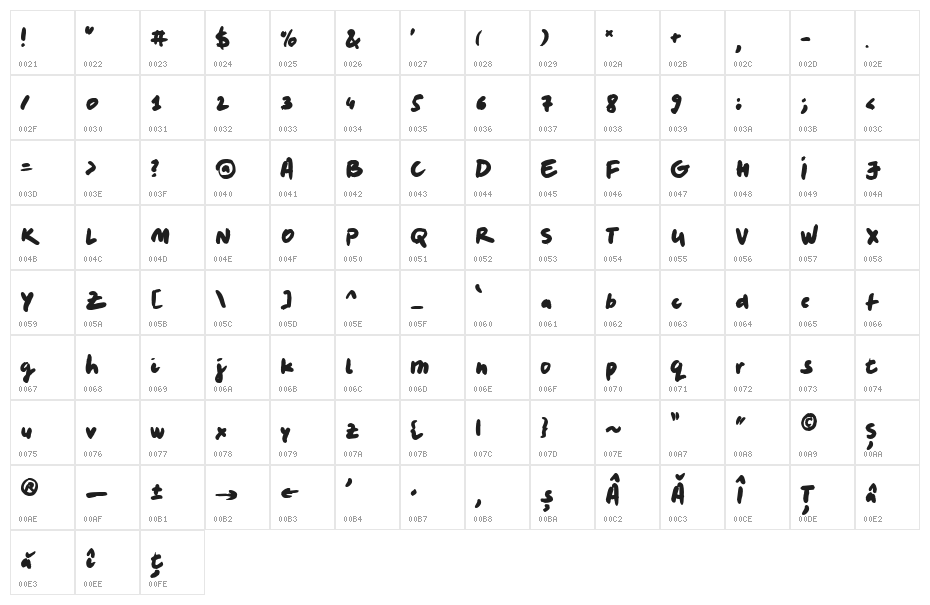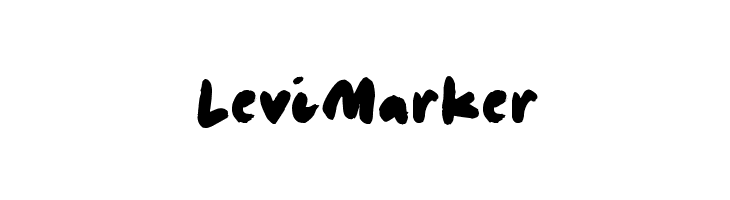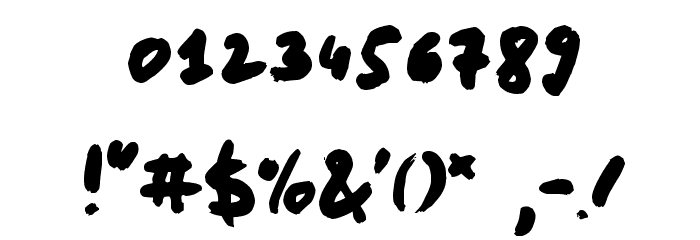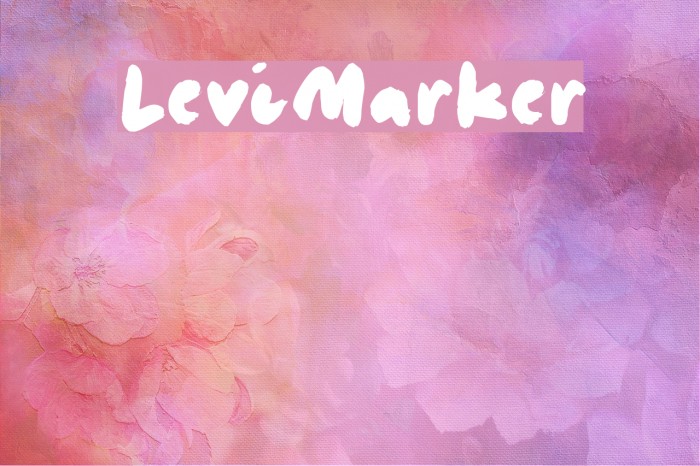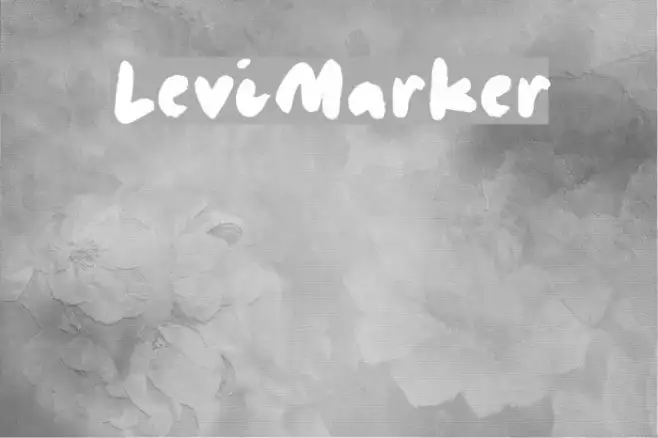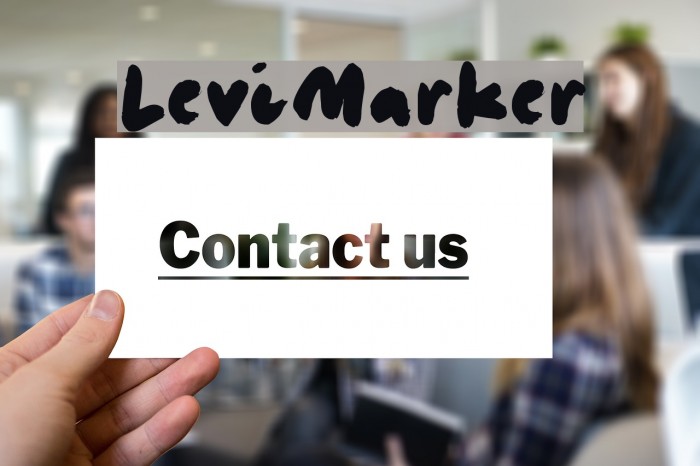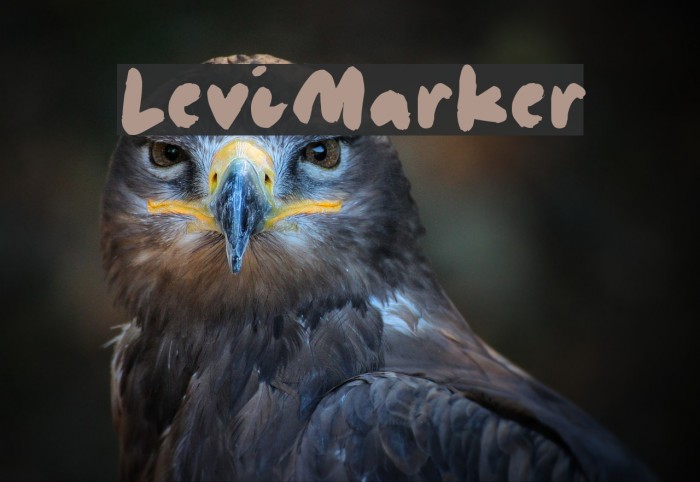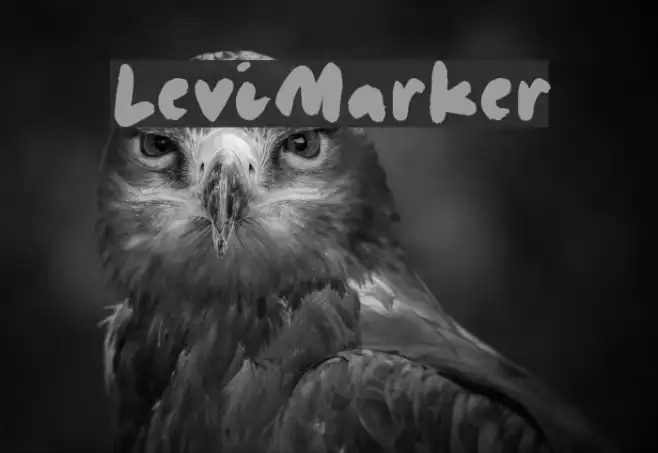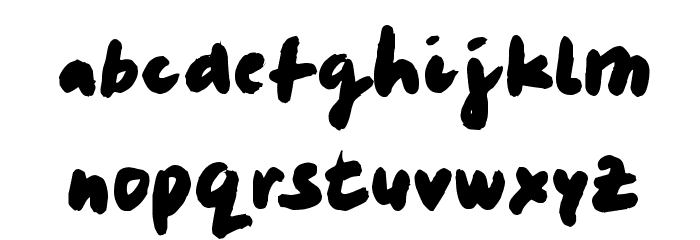
LeviMarker Font
LeviMarker Description
This font exhibits a bold and expressive handwritten style, reminiscent of marker or brush strokes. The characters are thick and slightly irregular, giving a casual and dynamic appearance. The uppercase and lowercase letters maintain a consistent flow, with rounded edges and varying stroke widths that add to its organic feel. Numbers and special characters follow the same aesthetic, ensuring uniformity across all glyphs. The font's playful and informal nature makes it suitable for creative and artistic projects, where a personal touch is desired.
| Overall Style | Casual, Artistic |
| Proposed Projects | Ideal for posters, greeting cards, branding, and social media graphics where a personal and artistic touch is needed. |